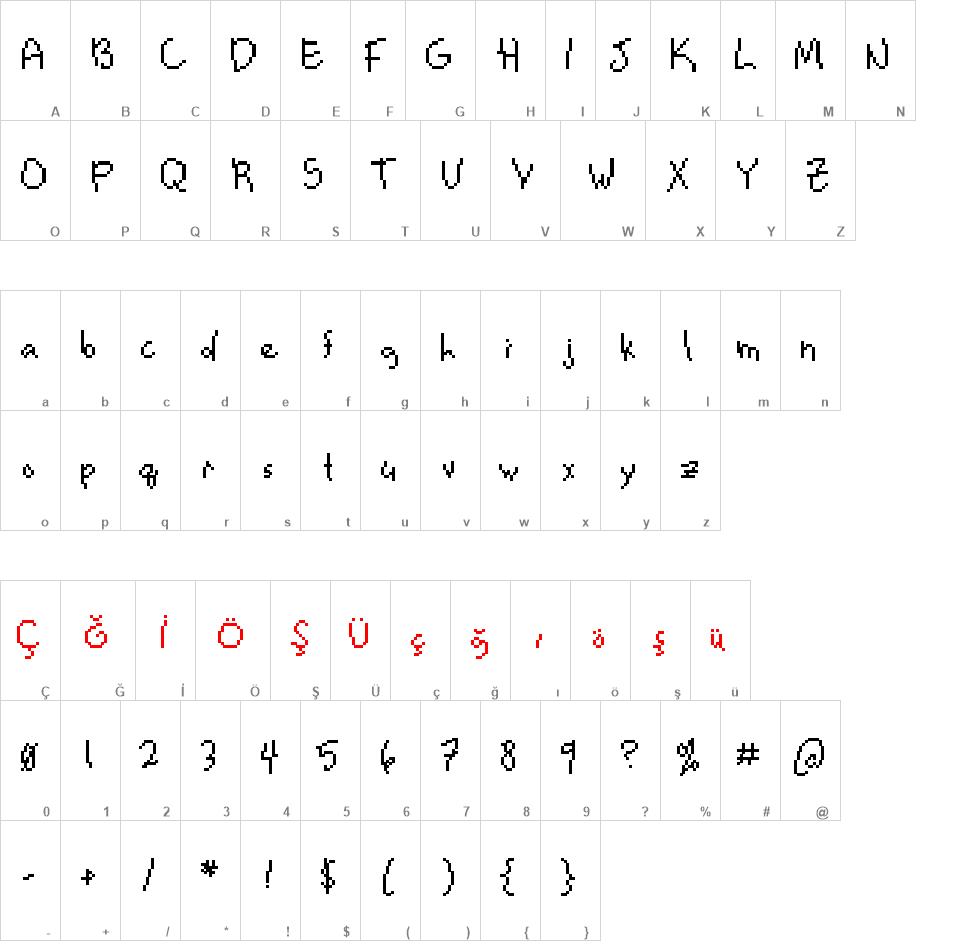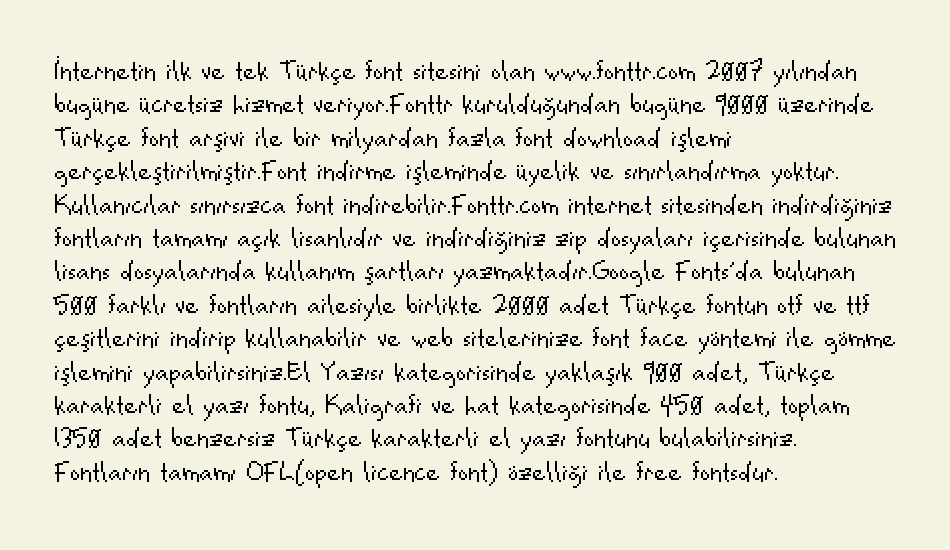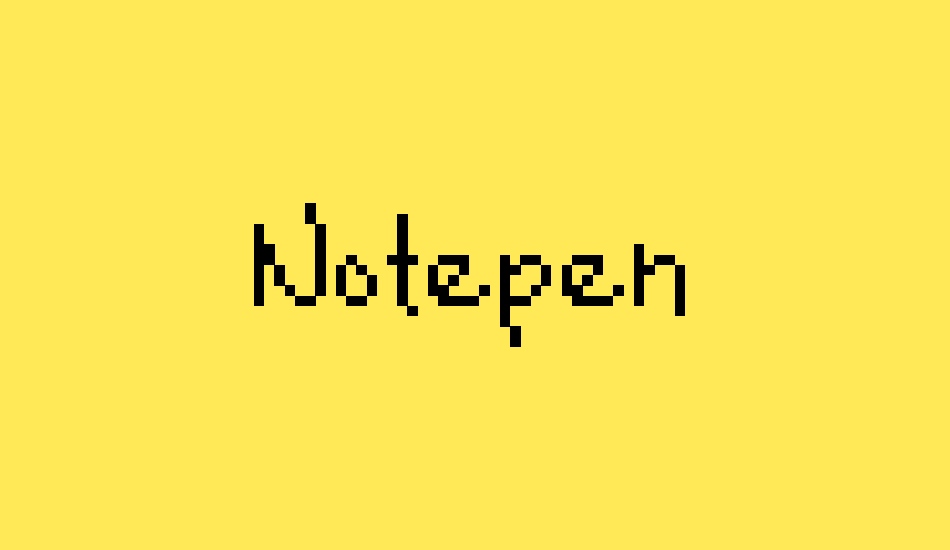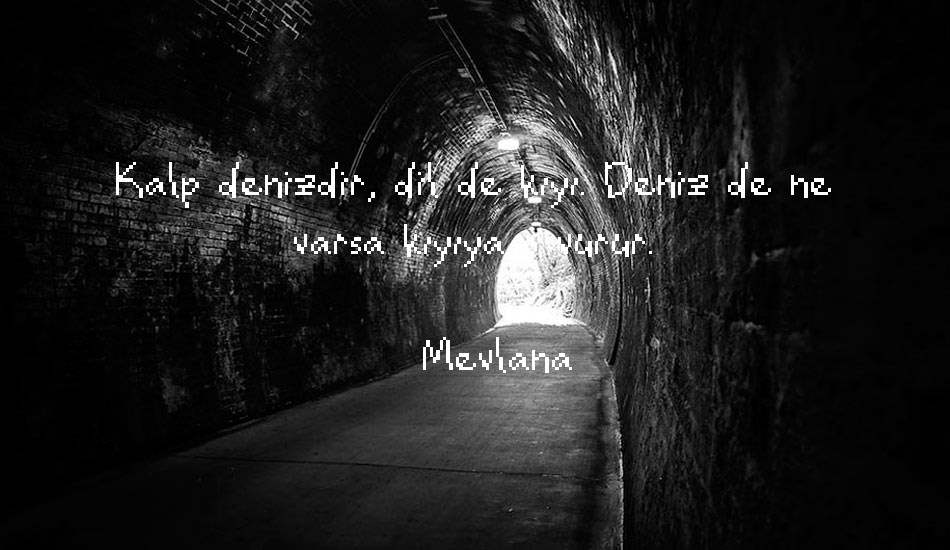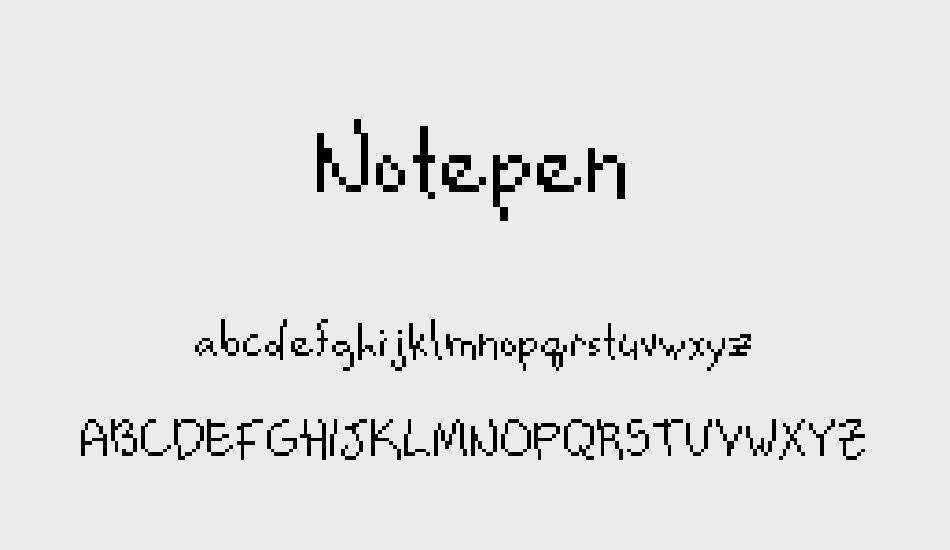
Notepen font
Notepen by jeti: A pixel recreation of my handwriting. To keep things natural and lively, every single letter is unique, including accented characters.